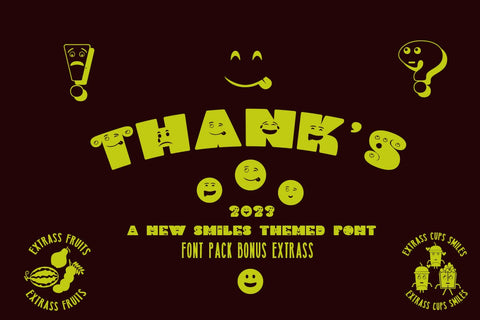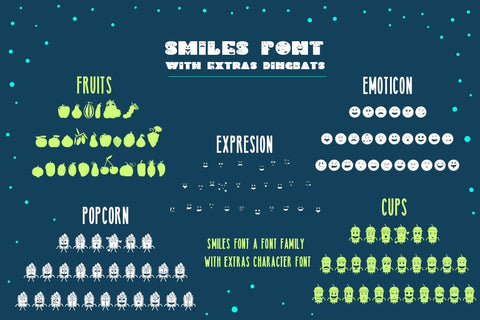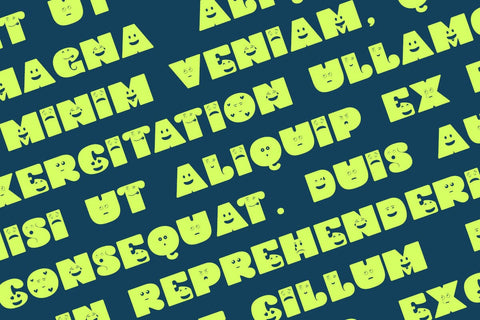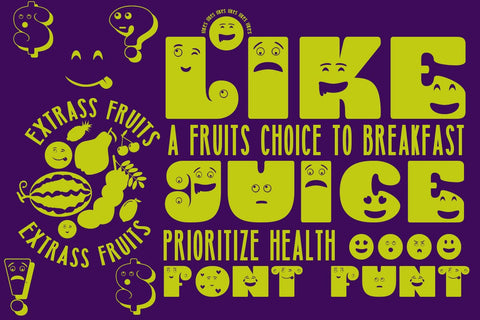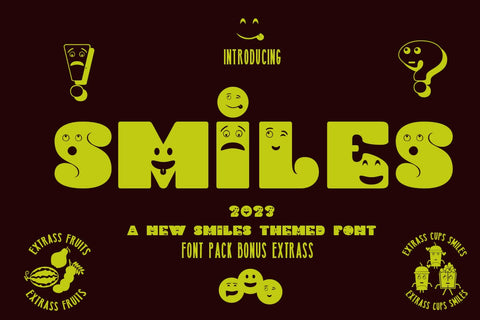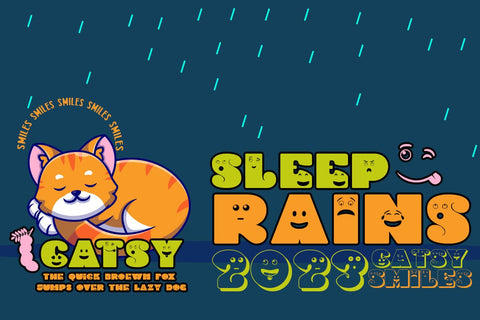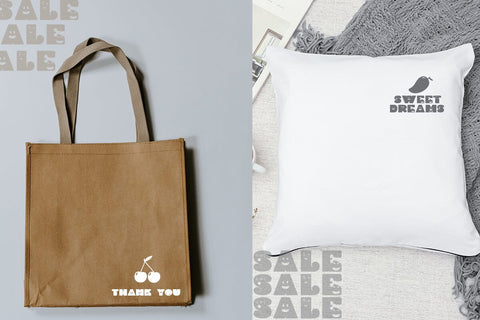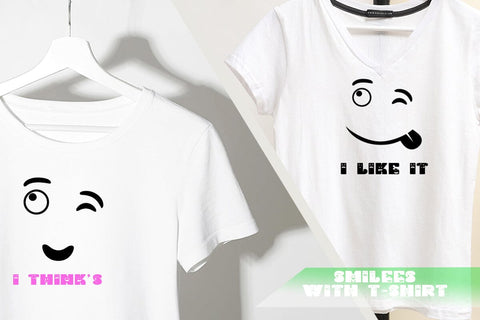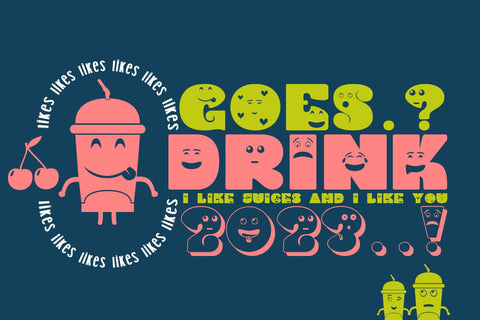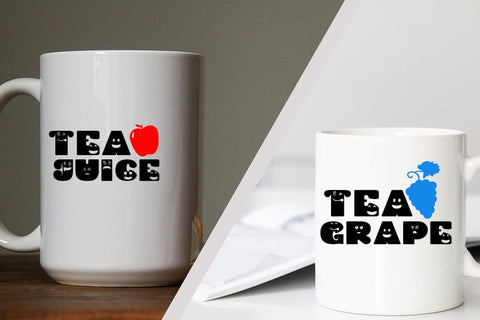
Smiles font family
Smiles font family it is a unique display font with the theme of expression in it, this bold and cute font is perfect for cute designs for children, magazines, it really represents a cheerful feeling, it looks simple but very special. Suitable for all kinds of designs such as invitation cards, congratulations, brands, logos, children's books, coloring crafts, etc. book, there are several font families you can mix and match, as well as cute dingbat additions you can use in your design projects,